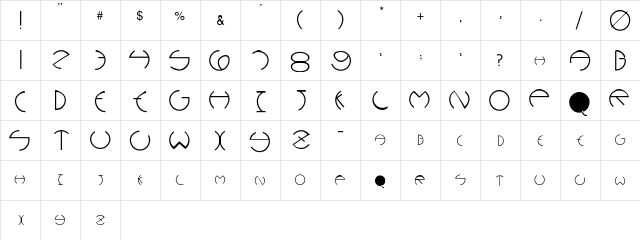
PCRounders Regular Font Preview
PCRounders Regular
PCRounders Regular Font Details
Design Context for PCRounders Typeface
PCRounders uses gentle rounded endings to create a warm, inviting typographic personality — less corporate than geometric sans, more refined than playful display fonts.
Well-suited to UI design, mobile interfaces, and any brand that wants approachability without sacrificing clarity.
Font Pairing: Pairs well with a rounded or humanist sans for body copy, maintaining the friendly tone without relying on PCRounders to carry extended reading.
Pro Tip: Use PCRounders for UI elements, app interfaces, and anywhere a friendly, approachable tone needs to be maintained without sacrificing clarity.